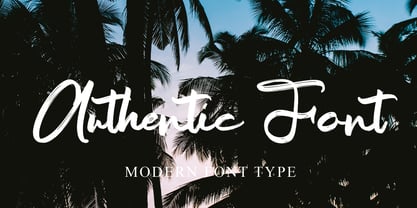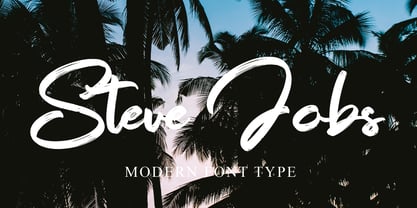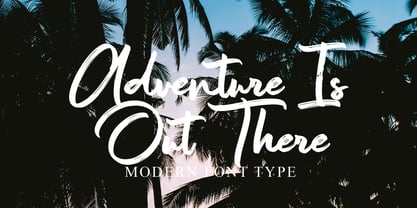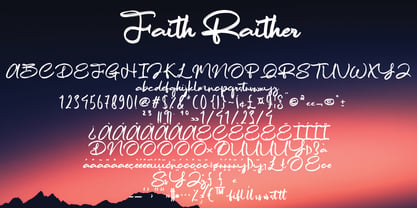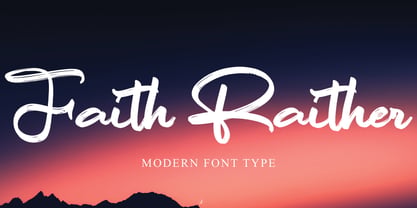
Faith Raither
The Faith Raither Font Family was designed by Dhoni Trihatmoko and published by Ayska. Faith Raither contains 1 styles. More about this family
Venture into the enchanting world of Faith Raither, a standout font that masterfully combines contemporary flair with the smooth allure of hand-drawn design. Conceived meticulously, Faith Raither exudes an unmatched elegance and cultured charm, establishing itself as an indispensable asset in your artistic endeavors. Experience its captivating aura as it amplifies your blog's appeal, infuses a bespoke touch to your digital planner layouts, injects personal enchantment into your invites, or articulately conveys feelings in your personally crafted greeting cards. Savor the timeless sophistication and trailblazing spirit of Faith Raither as it revamps your lovingly curated photo albums or personalized home decors. Faith Raither’s knack for seamlessly transforming ordinary digital canvases into stupefying visual experiences is unrivaled. Empower your creative quest with Faith Raither, guiding you towards an impressive showcase of creativity. Yield to the artistic magnetism of Faith Raither, and witness your creative concepts blossom into unique and radiant masterpieces